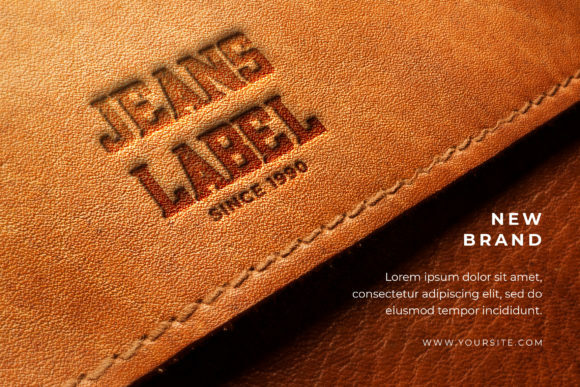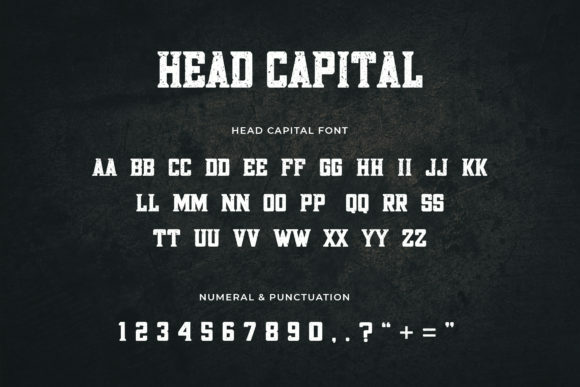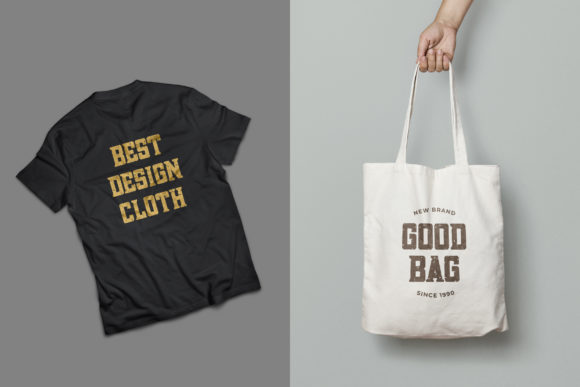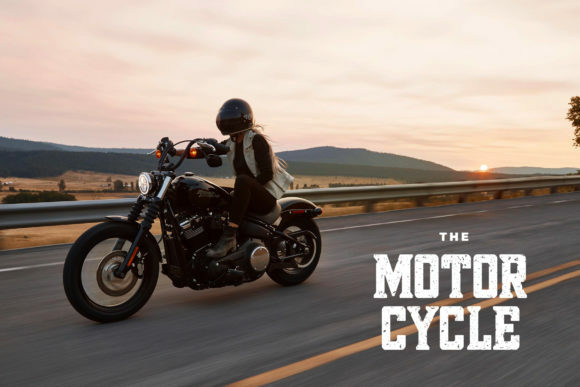
Head Capital Font
HEAD CAPITAL FONT SPECIMEN
Head Capital is a bold and classic slab serif font. Add it to your most creative ideas and notice how it makes them come alive!